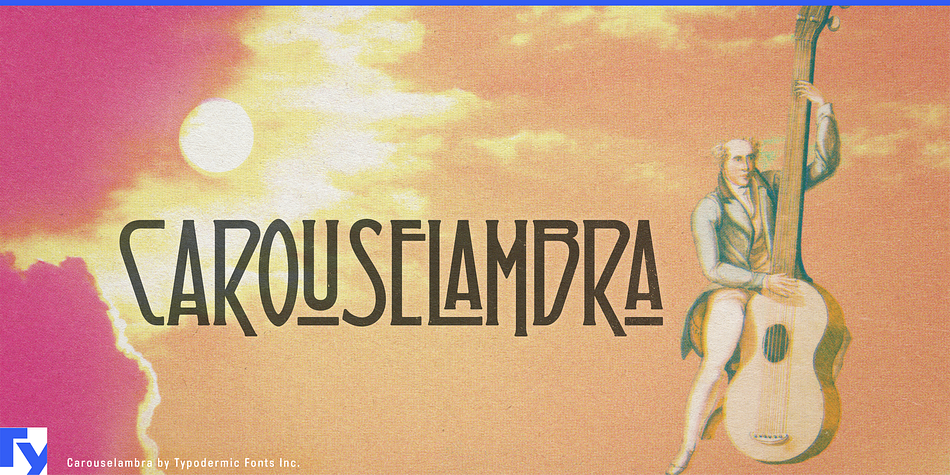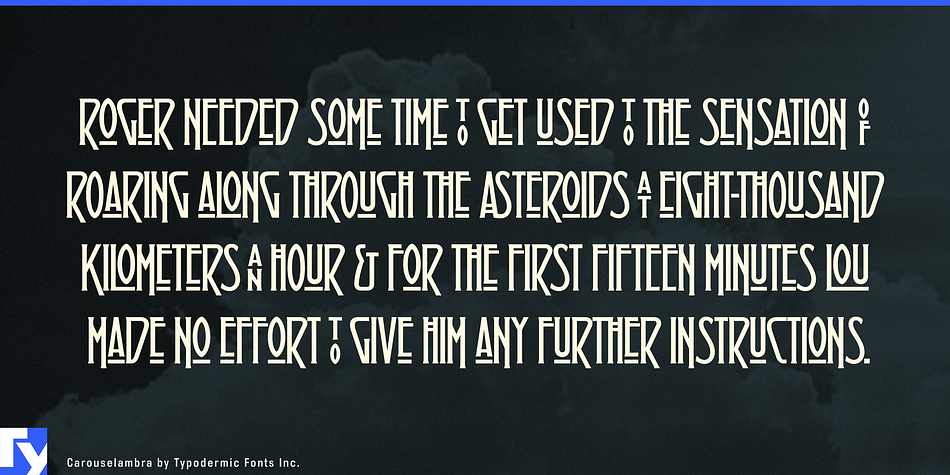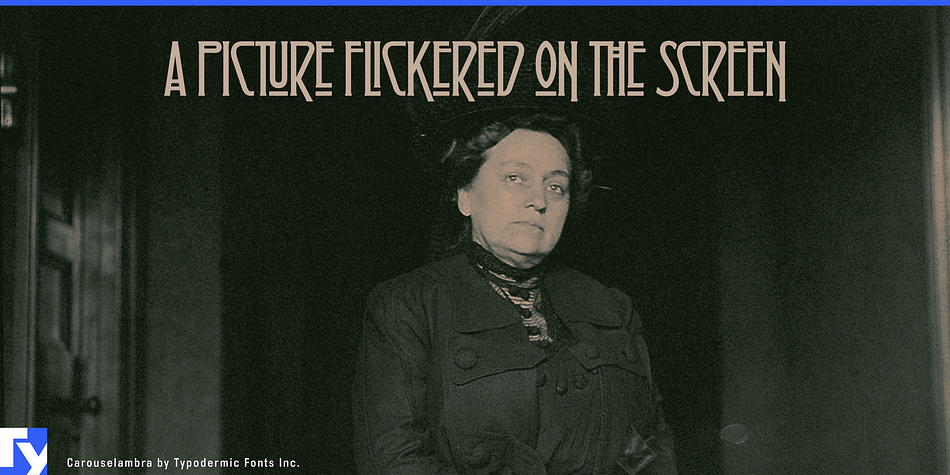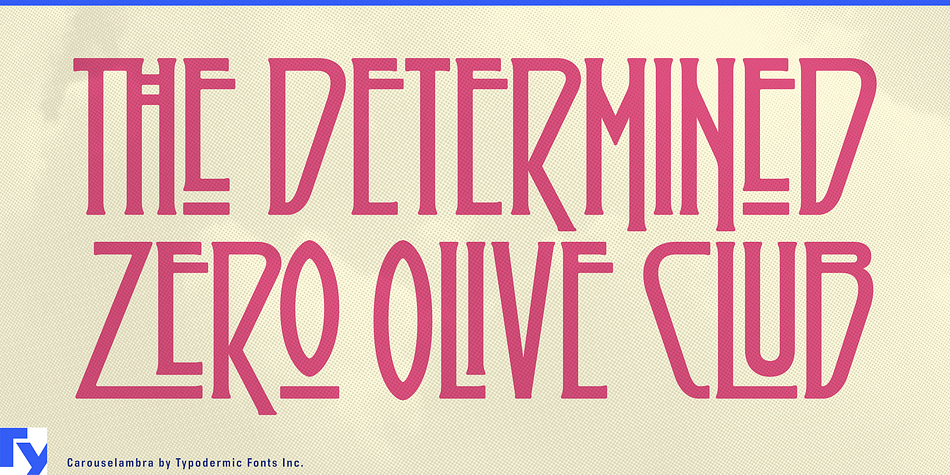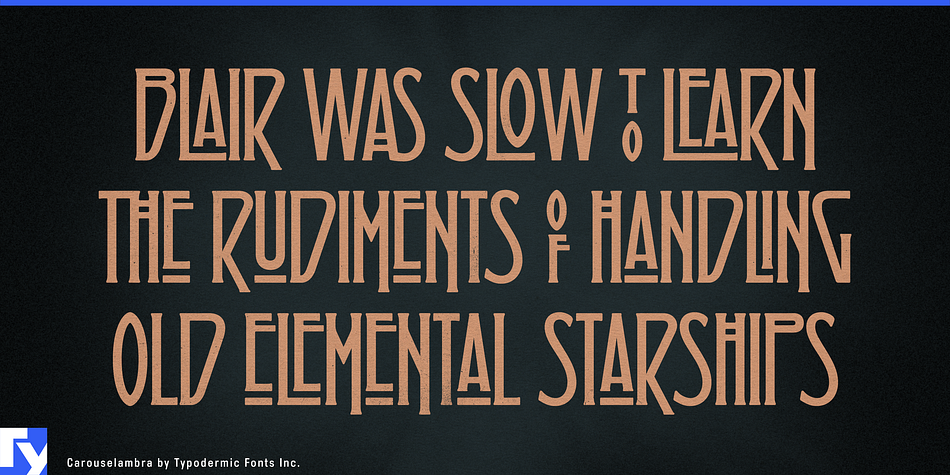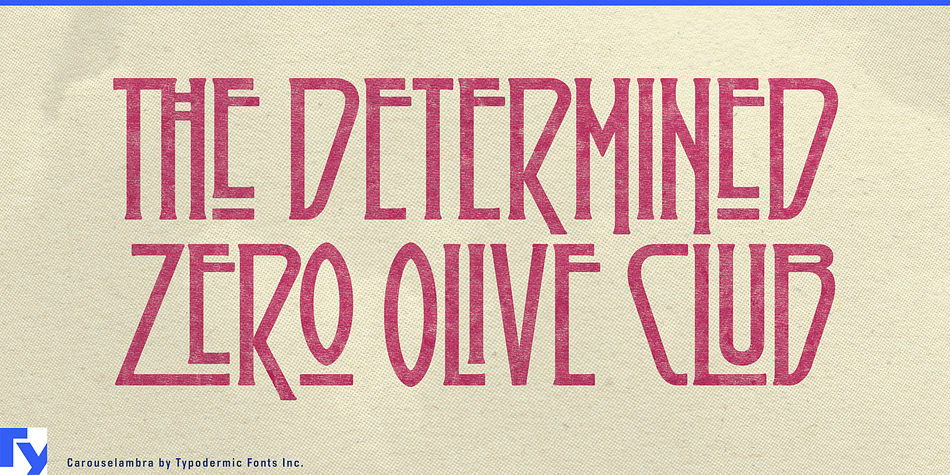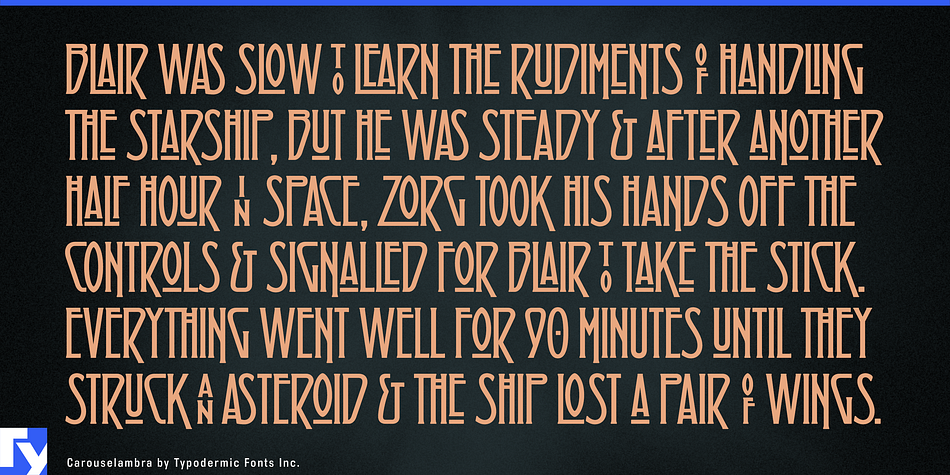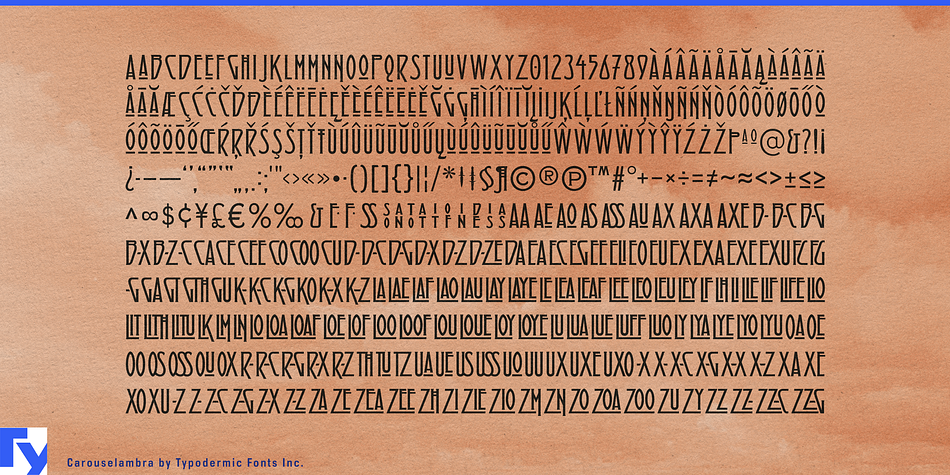
Carouselambra is a retro and art nouveau font published by Typodermic Fonts Inc.
Carouselambra is a tribute to the lettering on Led Zeppelin’s Houses of the Holy album sleeve. OpenType-savvy applications such as Photoshop, Illustrator or InDesign will automatically substitute letter groups for a real custom Art Nouveau look.